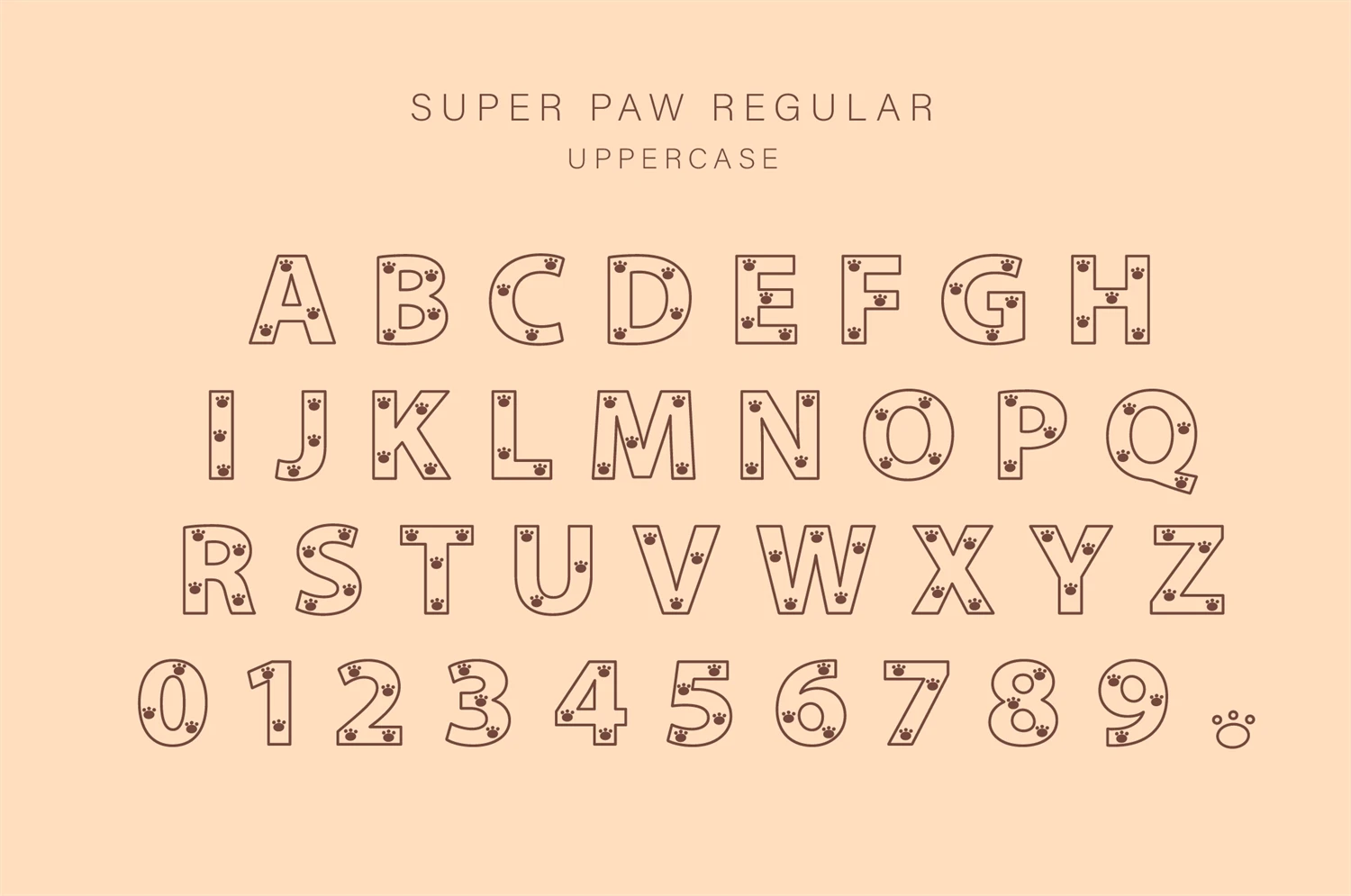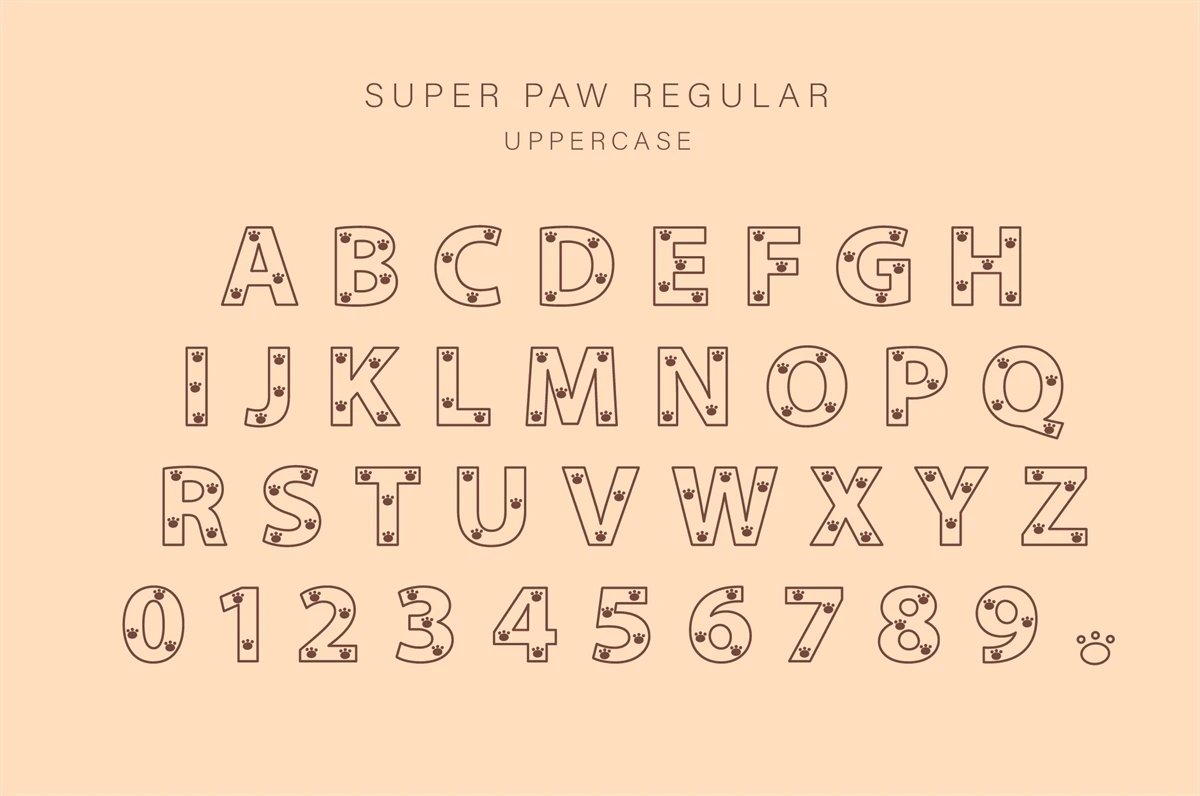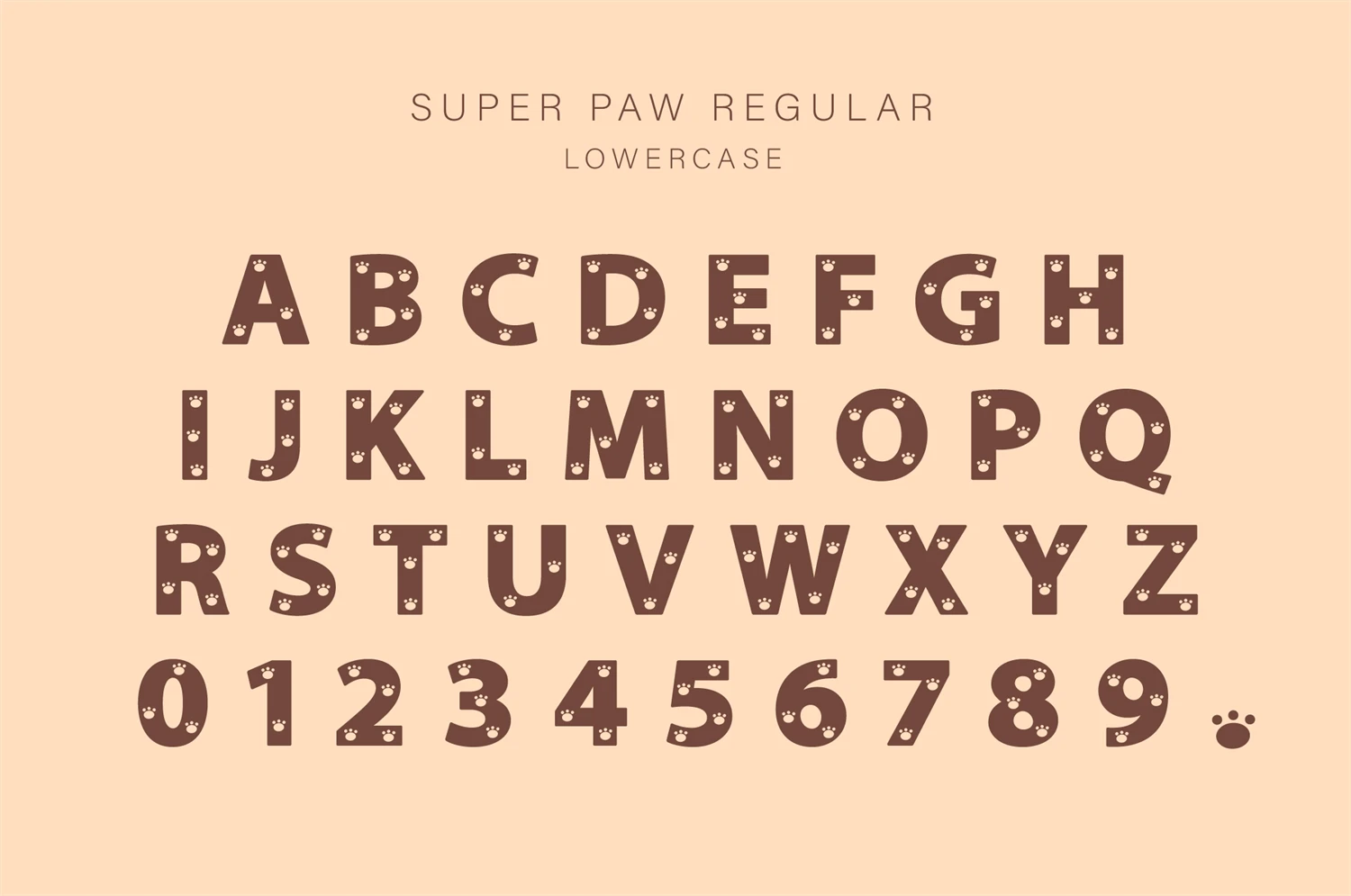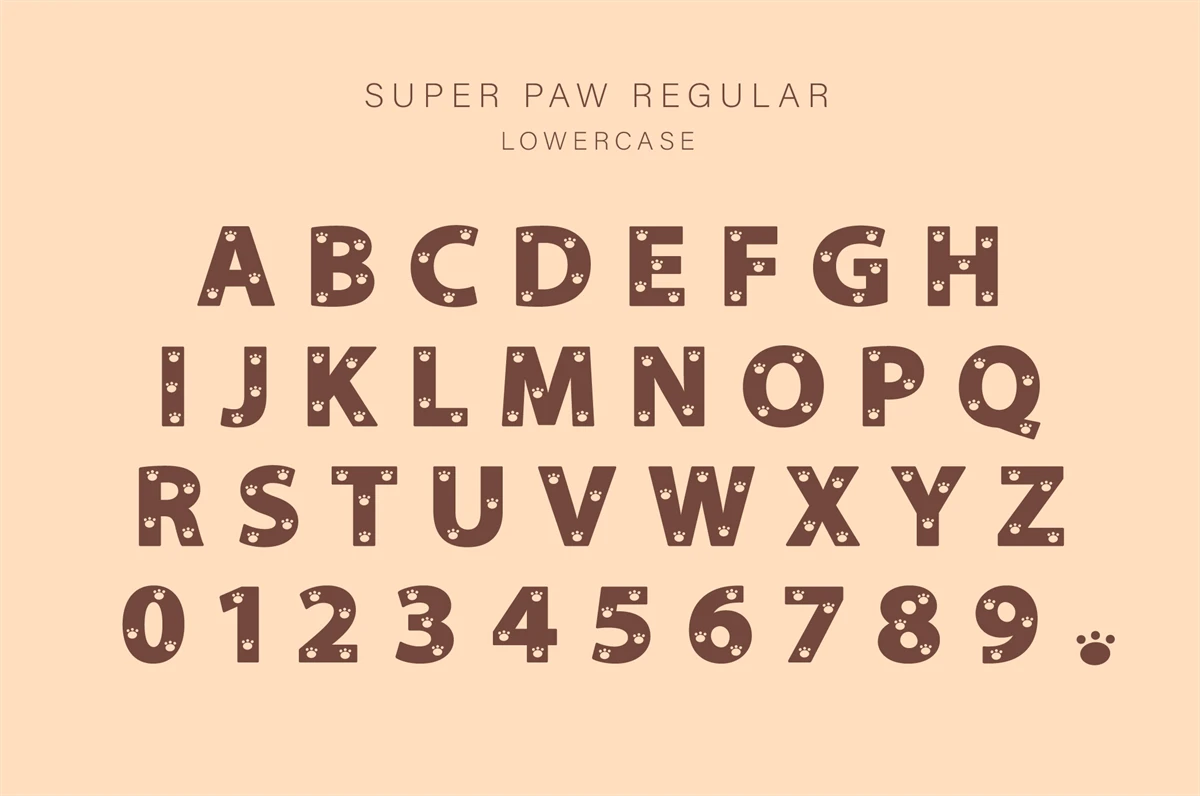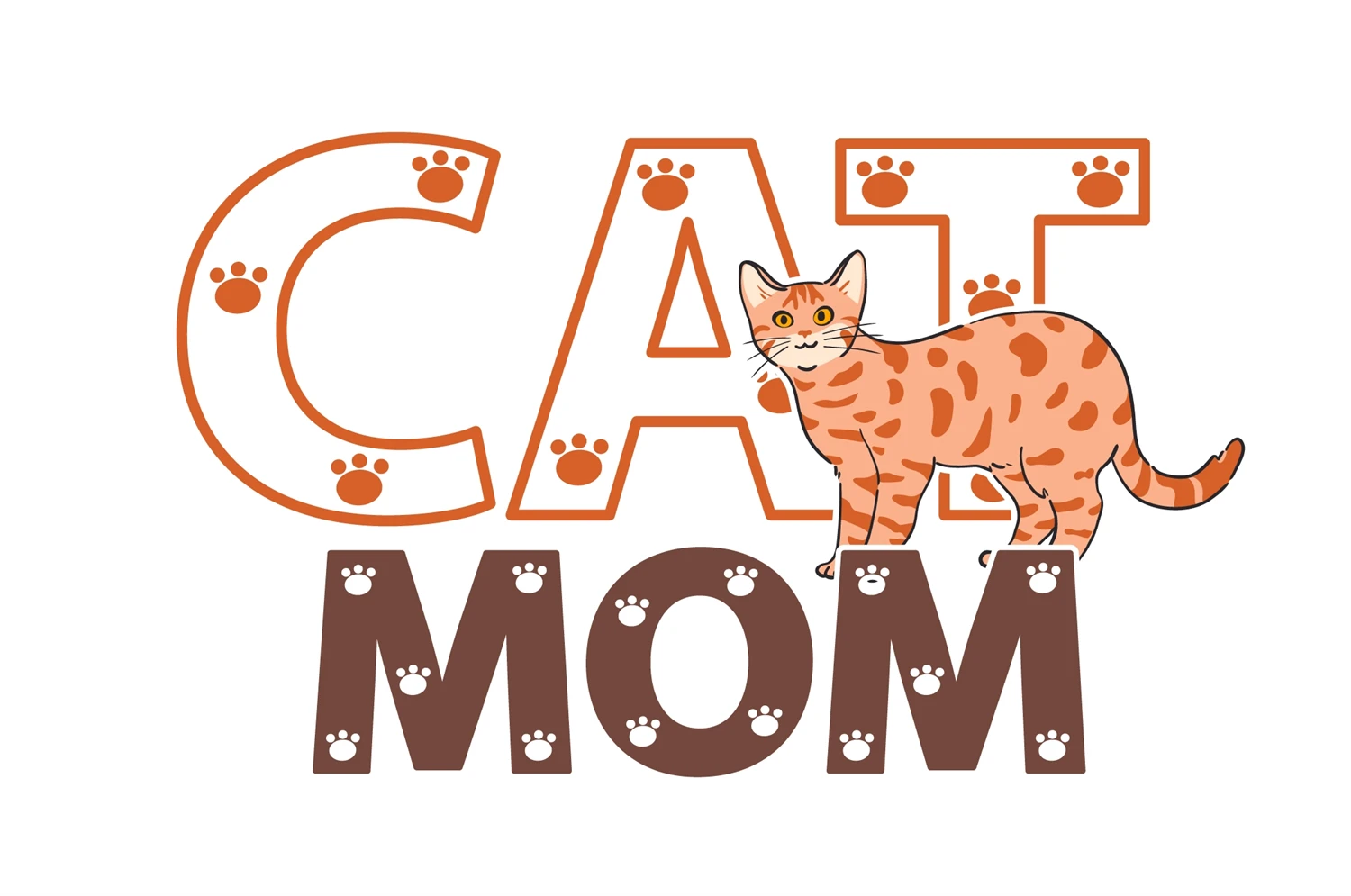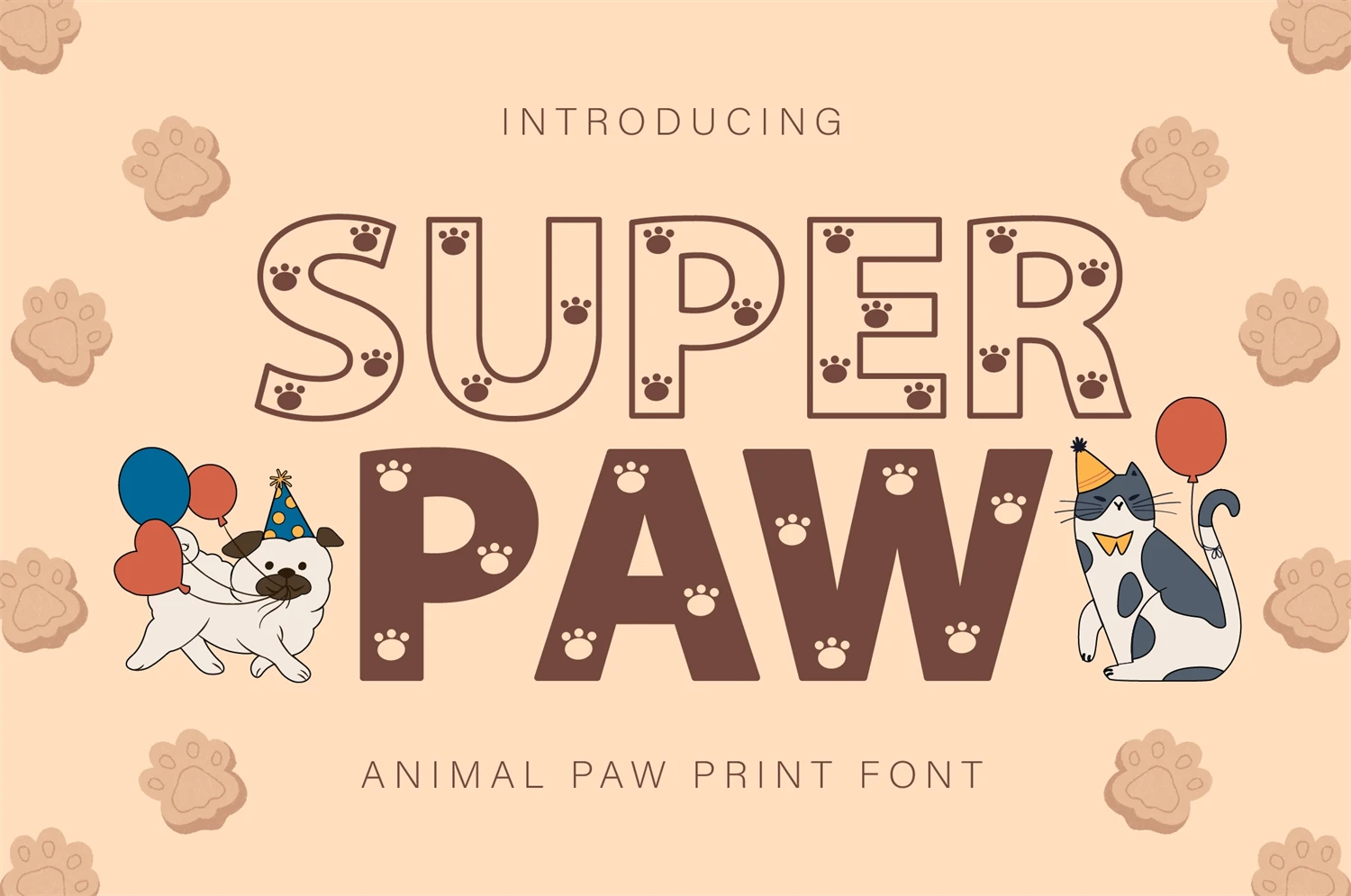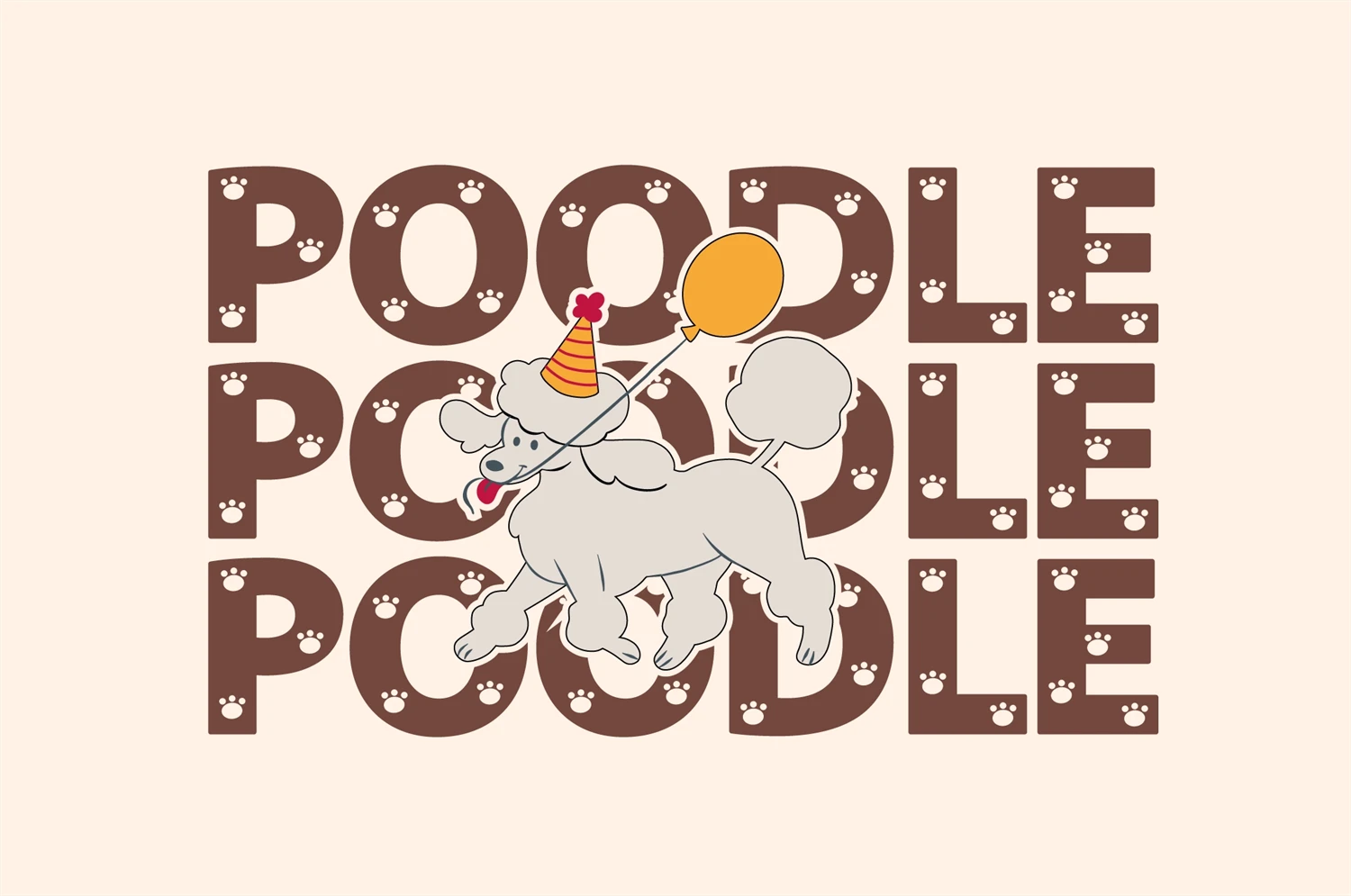
Super Paw Font, Animal Paw Print Font Friendly Font For Kids
Introducing Super Paw, a delightful font that pays homage to our furry friends. It's a uniquely creative companion for your crafting projects, whether you're designing greetings cards, personalizing letters or adding a charming spin to schoolwork. Super Paw stands out with its intricate detailing, featuring playful animal paw prints that add an element of whimsy to your creations. The cuteness of Super Paw is simply irresistible and it eagerly awaits to add a meow-wow factor to your designs!